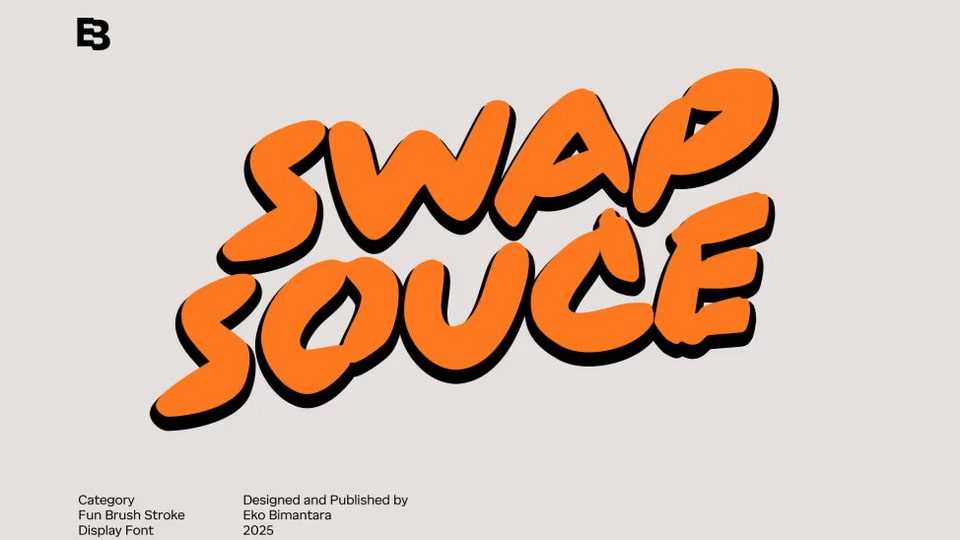
Download Swap Sauce font, a vibrant, fun brush stroke display typeface that exudes energy and playfulness. with its bold, rounded letterforms and dynamic design.